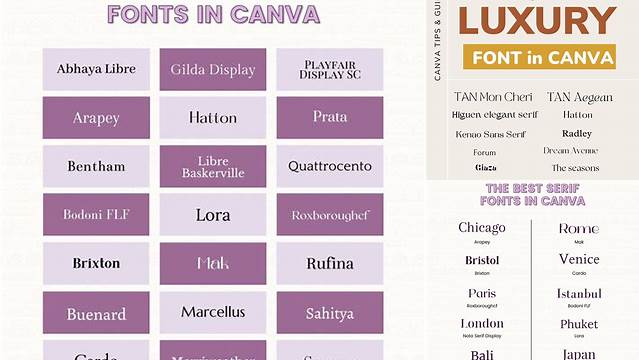
Best Canva Pro Serif Fonts: Elevate Your Designs
Hey guys! Looking to add a touch of elegance and sophistication to your Canva designs? You've come to the right place! In this guide, we're diving deep into the best Canva Pro serif fonts that can truly elevate your projects. Serif fonts, with their classic and timeless appeal, are perfect for creating a professional and polished look. Whether you're designing a logo, crafting marketing materials, or creating stunning social media graphics, the right serif font can make all the difference. Let's explore some amazing options available in Canva Pro!
1. Understanding Serif Fonts in Canva Pro
Before we jump into specific font recommendations, let's talk a little bit about what makes serif fonts so special, especially within the Canva Pro ecosystem. Serif fonts are characterized by the small decorative strokes, or “serifs,” at the end of each letter. These serifs create a sense of tradition and formality, making them ideal for projects that need to convey authority and trustworthiness. Canva Pro offers a wide variety of serif fonts, ranging from classic styles to more modern interpretations. Using Canva Pro gives you access to a premium library of fonts that aren't available in the free version, allowing you to achieve a more refined and professional aesthetic. This section will explore the historical context of serif fonts, their unique characteristics, and how they can be effectively used in various design projects within Canva Pro. Understanding the nuances of serif fonts will help you make informed choices and create visually appealing designs that resonate with your audience.
2. Top 5 Classic Serif Fonts in Canva Pro
Let's kick things off with the classics! These serif fonts have stood the test of time and remain popular choices for their versatility and readability. When you're aiming for a timeless and elegant design, these are your go-to options. These fonts are perfect for body text, headlines, and any situation where clear communication is key. Exploring these fonts will help you build a strong foundation for your designs, ensuring they look professional and polished. In the world of Canva Pro serif fonts, these classics are a must-know.
2.1. Playfair Display
Playfair Display is a beautiful transitional serif font that exudes elegance and sophistication. It's perfect for headlines, titles, and anything that needs a touch of class. Playfair Display works wonderfully in both digital and print formats. This font is characterized by its high contrast and delicate serifs, making it ideal for creating a refined and sophisticated look. In Canva Pro, Playfair Display is a popular choice for wedding invitations, editorial designs, and branding materials. The font’s versatility allows it to be used in a variety of design contexts, from formal to more casual settings. When using Playfair Display, consider pairing it with a simpler sans-serif font for body text to maintain readability. This combination creates a visual hierarchy that enhances the overall design. Whether you are designing a website header or a printed brochure, Playfair Display adds a touch of elegance that is hard to ignore.
2.2. Lora
Lora is a well-balanced serif font that is both modern and readable. It's an excellent choice for body text, as well as headlines. Lora has a contemporary feel while still retaining the classic charm of a serif font. This makes it a versatile option for a wide range of projects. The font’s slightly brushed curves give it a warm and inviting appearance, making it ideal for websites, blogs, and other digital content. In Canva Pro, Lora is frequently used for editorial designs, book covers, and marketing materials. Its readability ensures that your message is conveyed clearly, while its elegant serifs add a touch of sophistication. When pairing Lora with other fonts, consider using a clean sans-serif or a contrasting serif to create visual interest. The font’s adaptability makes it a staple in any designer’s toolkit, especially when working within Canva Pro.
2.3. Merriweather
Merriweather is a highly readable serif font that was designed specifically for screens. It's perfect for websites, blogs, and any digital content where legibility is crucial. Merriweather has a slightly condensed letterform and sturdy serifs, making it easy to read even at small sizes. This font is a go-to choice for designers who prioritize readability without sacrificing style. In Canva Pro, Merriweather is often used for body text, captions, and other text-heavy elements. Its clean and simple design ensures that your content is accessible and engaging. When using Merriweather, you can pair it with a variety of sans-serif fonts to create a balanced and harmonious design. The font’s versatility and readability make it an essential part of the Canva Pro font library.
2.4. Libre Baskerville
Libre Baskerville is a modern take on the classic Baskerville typeface. It's a refined and elegant serif font that works well for both headlines and body text. Libre Baskerville is known for its clean lines and balanced proportions, making it a timeless choice for any design project. This font exudes a sense of professionalism and sophistication, making it ideal for formal documents, reports, and other business materials. In Canva Pro, Libre Baskerville is frequently used for logos, branding materials, and editorial designs. Its classic appearance ensures that your designs look polished and professional. When pairing Libre Baskerville with other fonts, consider using a modern sans-serif to create a contemporary contrast. The font’s adaptability and elegance make it a valuable asset for any Canva Pro user.
2.5. Crimson Text
Crimson Text is a classic serif font designed for body text. Its elegant letterforms and excellent readability make it a favorite for books, articles, and other long-form content. Crimson Text has a warm and inviting feel, making it a great choice for designs that need to be both professional and approachable. This font is characterized by its balanced proportions and graceful serifs, which enhance the reading experience. In Canva Pro, Crimson Text is often used for blog posts, website content, and printed materials. Its versatility allows it to be used in a variety of design contexts, from formal to more casual settings. When pairing Crimson Text with other fonts, consider using a clean sans-serif for headlines to create a visual hierarchy. The font’s readability and elegance make it a standout choice for any text-heavy design.
3. Modern Serif Fonts Available in Canva Pro
If you're looking for something a little more contemporary, Canva Pro has a fantastic selection of modern serif fonts. These fonts blend the classic appeal of serifs with modern design sensibilities. They often feature cleaner lines, unique letterforms, and a more minimalist aesthetic. These fonts are great for brands that want to convey sophistication with a modern twist. In this section, we will explore the top modern serif fonts available in Canva Pro, highlighting their unique features and best use cases. Understanding these fonts will help you create designs that are both stylish and timeless, ensuring your projects stand out from the crowd.
4. Serif Fonts for Branding in Canva Pro
Your brand's font is a crucial element of its identity. A well-chosen serif font can convey sophistication, trustworthiness, and a sense of tradition. Canva Pro offers a plethora of serif fonts that are perfect for branding, from logos to marketing materials. This section will delve into the specific serif fonts that excel in branding applications, discussing their characteristics and how they can help you create a cohesive and impactful brand image. We’ll also cover practical tips for selecting the right serif font for your brand, ensuring your visual identity accurately reflects your values and resonates with your target audience. Let’s explore the world of Canva Pro serif fonts and how they can elevate your brand.
So there you have it, folks! A comprehensive guide to the best Canva Pro serif fonts. We've covered everything from classic choices to modern interpretations, and hopefully, you've found some new favorites to add to your design toolkit. Remember, the right serif font can make all the difference in creating a professional and polished look. Happy designing!